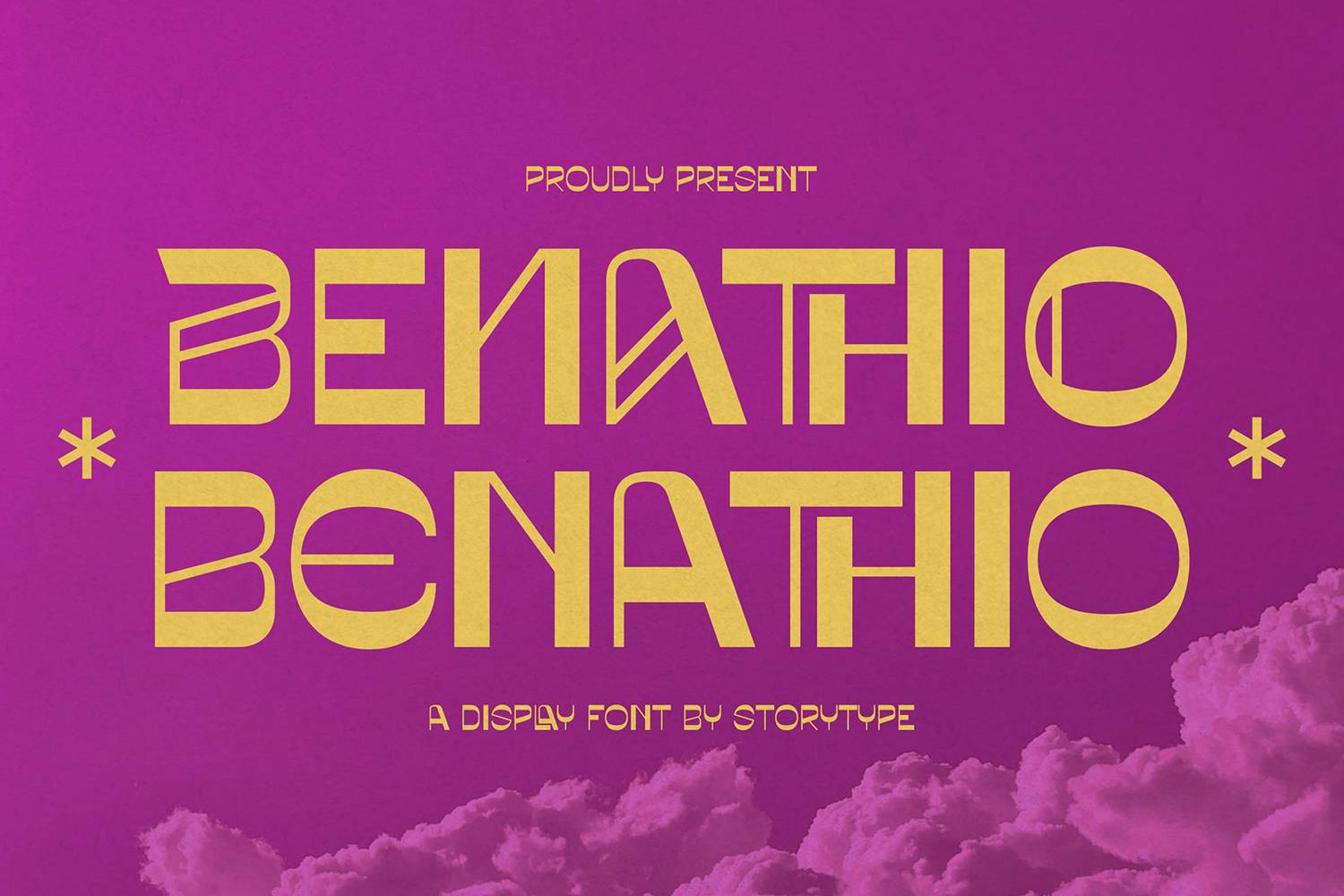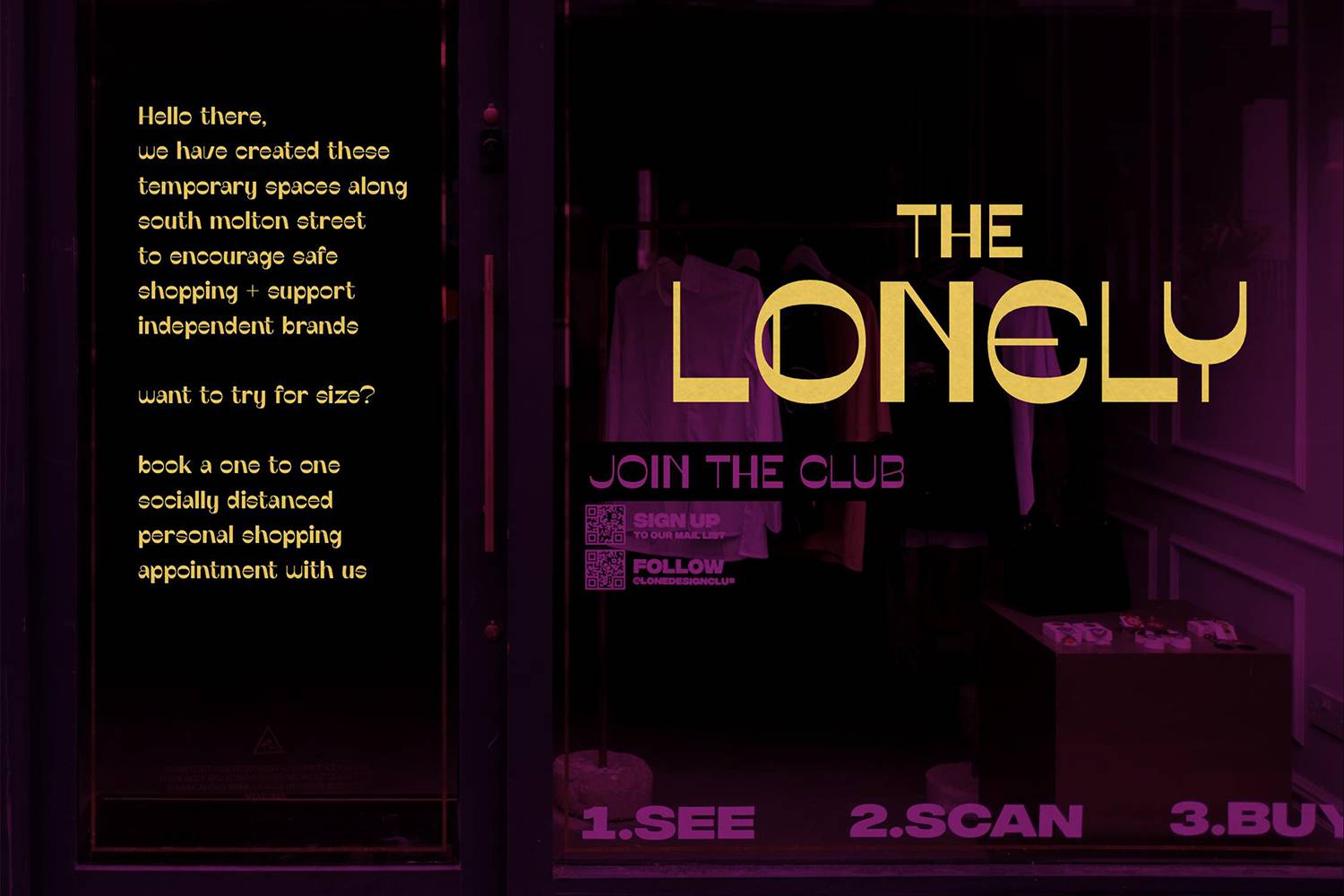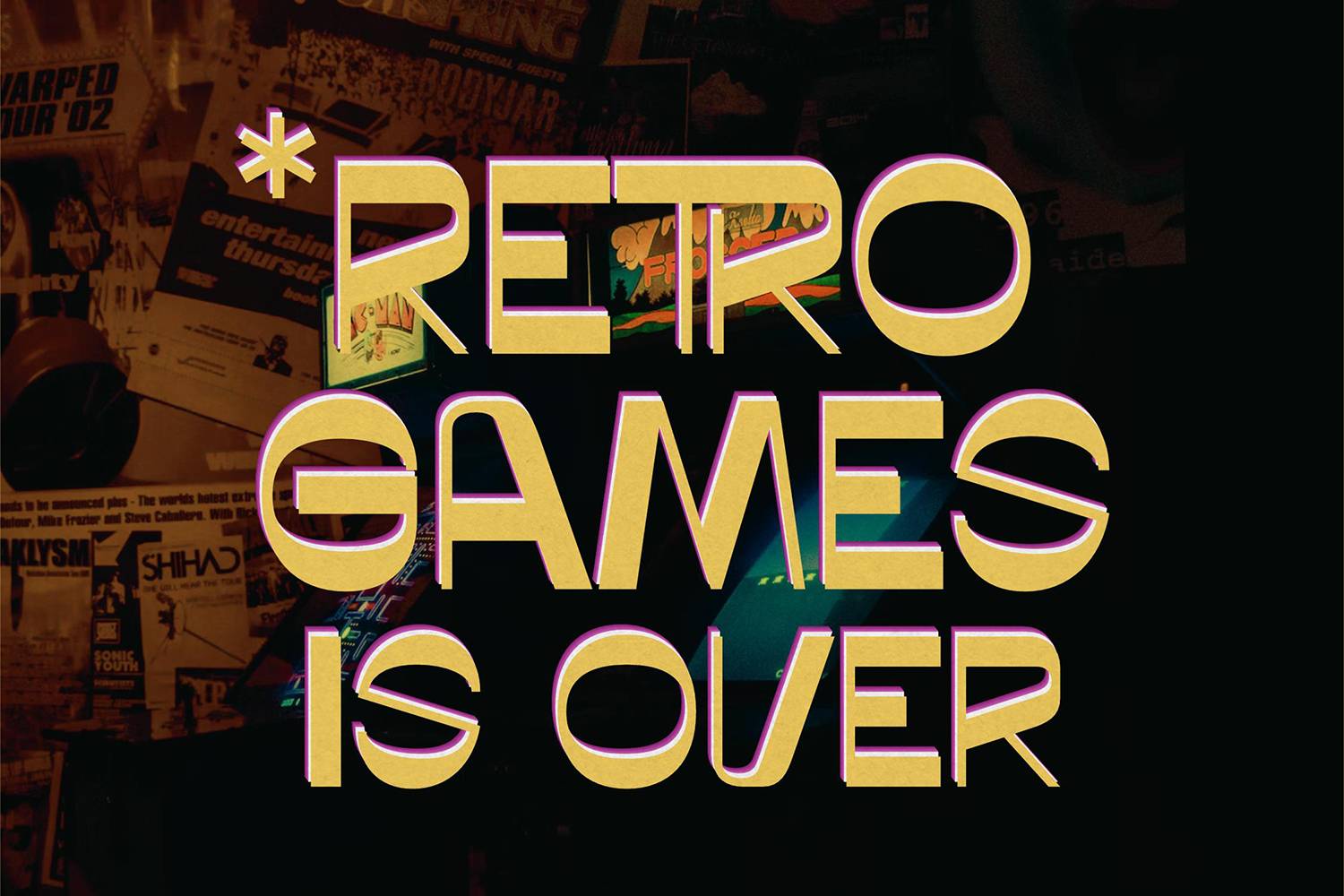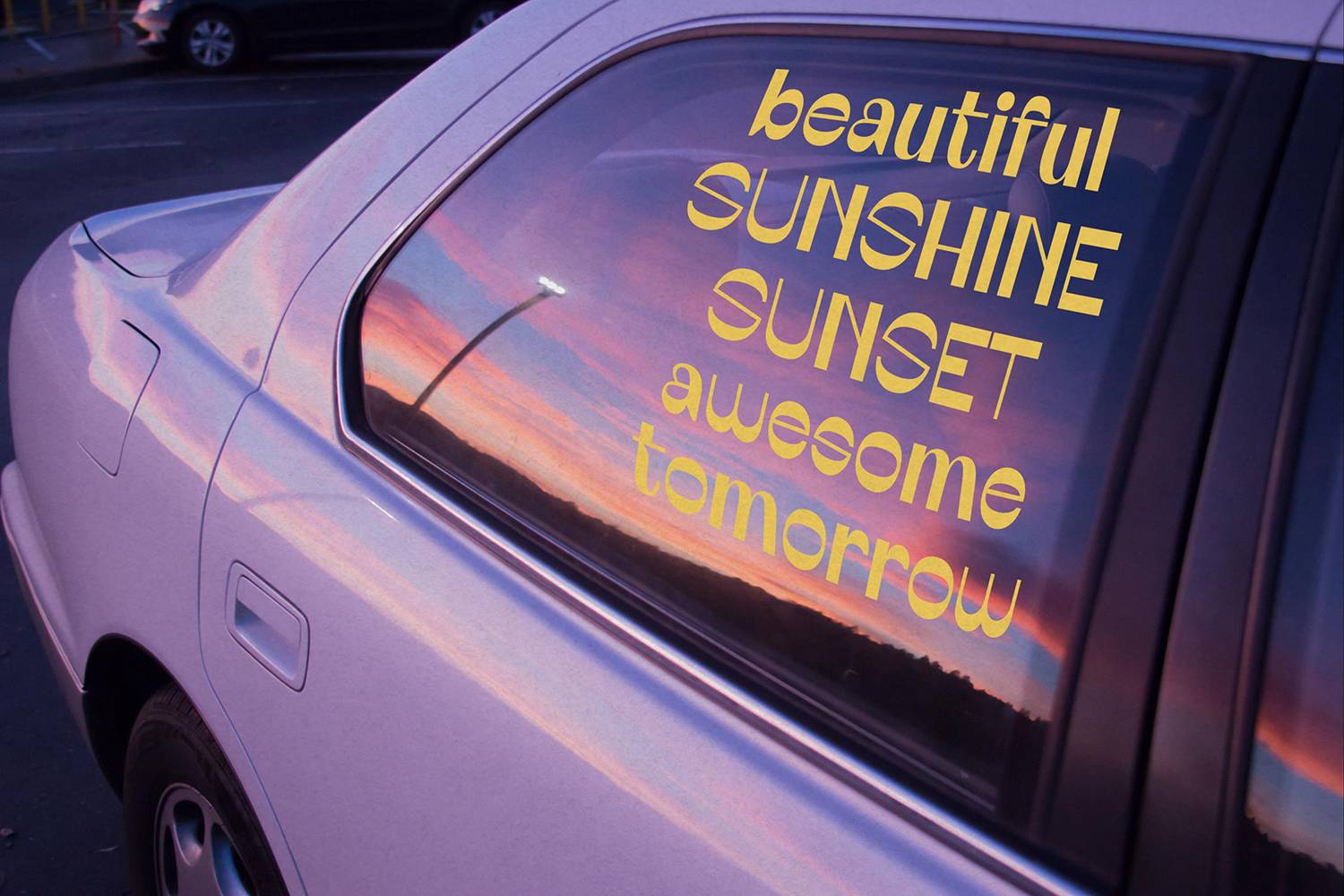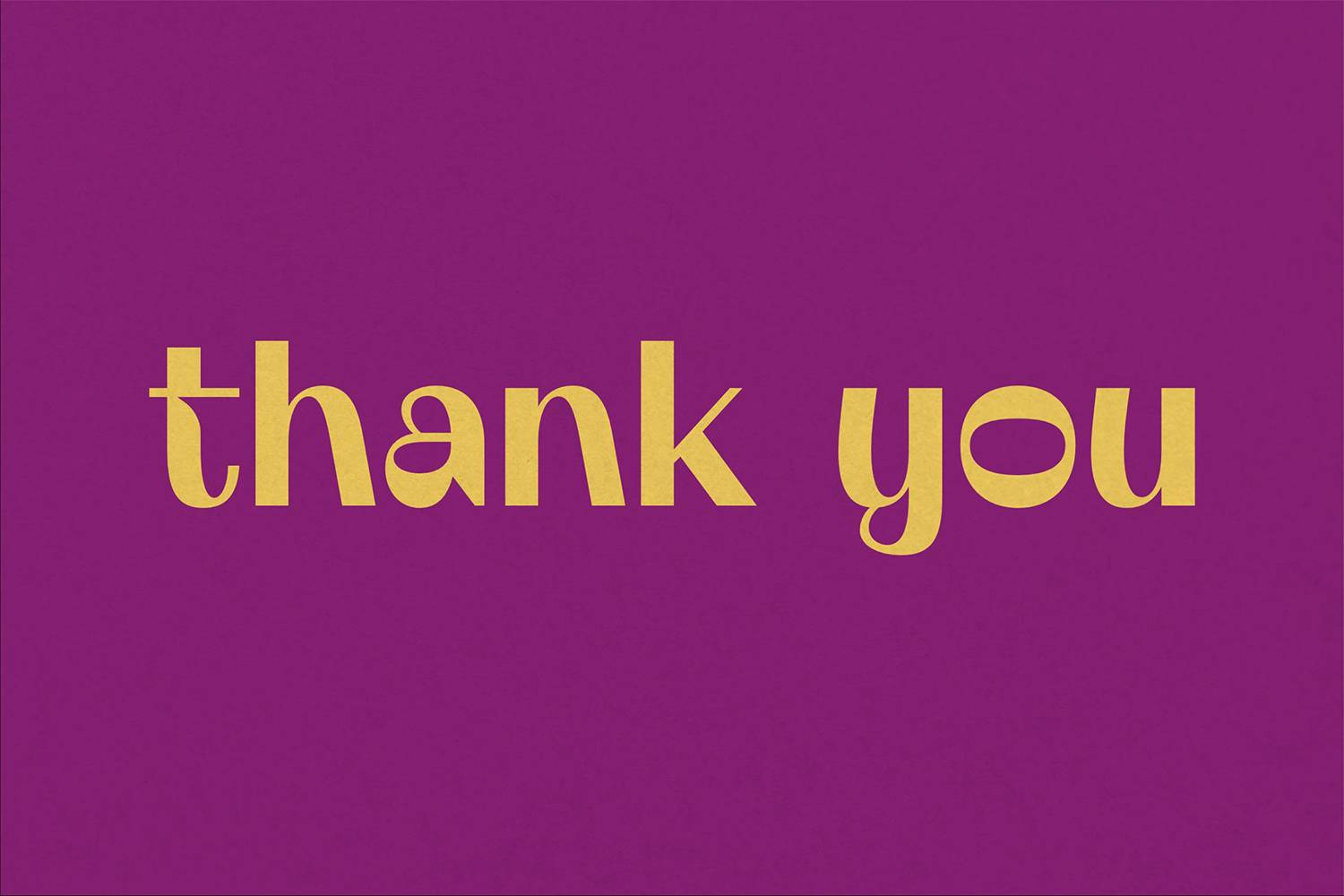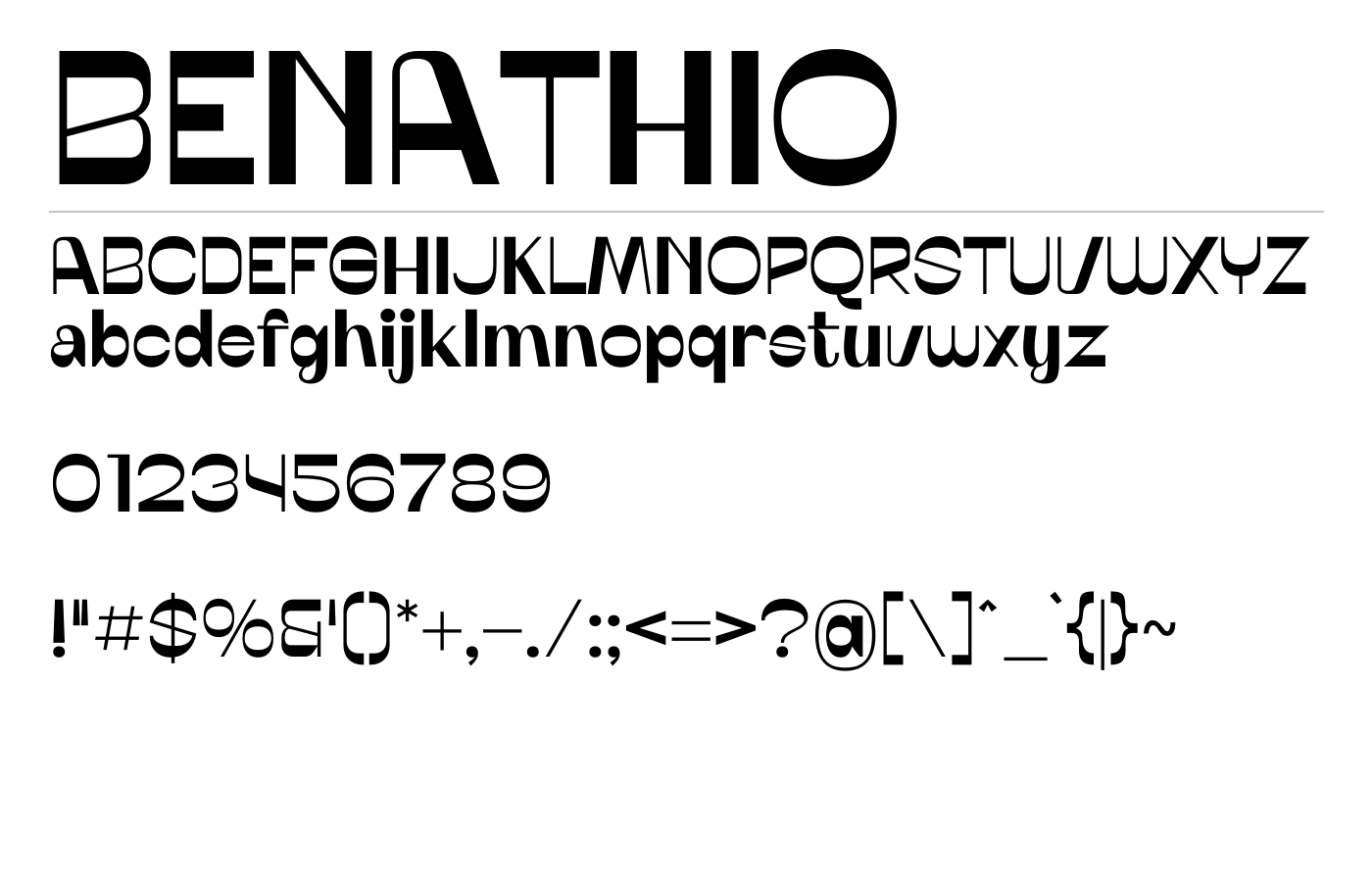
Benathio is a modern, geometric sans serif font with a distinctively futuristic and playful character. Its bold weight and unique letterforms, featuring sharp edges and unconventional shapes, make it ideal for eye-catching headlines, logos, and creative branding where a contemporary and innovative vibe is desired. This font works especially well in designs aiming to stand out with a sleek, tech-inspired style.
Benathio Font
About Benathio Font